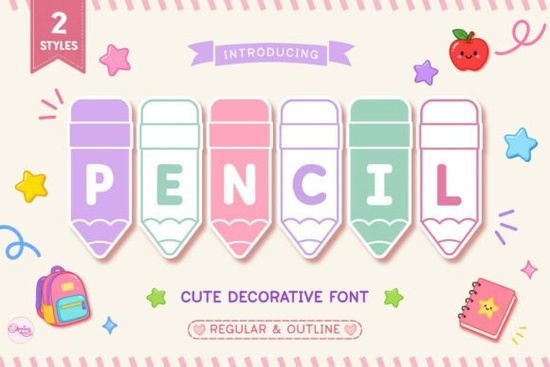
If you're working on a school-themed design project and need a font that actually looks like it belongs in a classroom, Pencil Font is worth a close look. It's a decorative typeface shaped like pencils with rounded edges, a playful vibe, and two styles that give you flexibility for all kinds of creative work. Whether you're designing teacher resources, making stickers, or building out print-on-demand products, this font brings a handcrafted school feel without any extra effort on your part.
What Makes Pencil Font Different from Other School Fonts?
There are plenty of school-themed fonts out there, but most of them fall into two camps: either too plain or too cartoonish. Pencil Font sits in a nice middle ground. Each letter is designed in a pencil shape, but the rounded edges and clean lines keep it readable at both large and small sizes.
It comes with two styles:
- Regular a filled-in pencil letterform, great for bold headings and print projects
- Outline a line-only version that works well for coloring pages, layered designs, and Cricut cut files
Having both styles in one download means you can mix and match depending on the project. Use the regular version for headers and the outline version for subheadings or decorative elements they pair naturally together.
Along with the two font styles, you also get 20 bonus Back to School PNG elements. These are ready-to-use graphics that complement the font's style think school supplies, apples, pencils, and other classroom-themed illustrations.
Who Is This Font Best For?
This font works well for a pretty wide range of creative people, but here are some of the most common uses:
- Teachers classroom labels, bulletin board headers, name tags, worksheet titles
- Cricut and Silhouette crafters back-to-school shirts, tote bags, decals, and iron-on projects
- Print-on-demand sellers notebook covers, mugs, apparel designs for the school season
- Small businesses signs, flyers, and promotional materials for tutoring centers, school supply shops, or kids' programs
- Sublimation designers all-over prints for tumblers, pencil cases, and fabric items
- Scrapbookers and journal makers headers and embellishments for education-themed pages
The kid-friendly style makes it especially fitting for anything aimed at elementary-age children or parents shopping for school-related products.
Does It Work with Cricut and Cutting Machines?
Yes. The Outline style is particularly well-suited for Cricut and Silhouette projects because the clean lines cut cleanly. You can use it for vinyl decals, heat transfer designs, and paper crafts without worrying about tiny details that might tear or snag during weeding.
The Regular style works too just keep in mind that filled letters use more material on larger cuts, so plan accordingly if you're working with limited vinyl or cardstock.
How Does It Compare to Other Decorative Fonts?
If you've browsed through decorative fonts before, you know the options are endless. Fonts like Chalk Font give a classroom chalkboard feel, while Crayon Font leans into a younger, crayon-drawn look. Pencil Font fills its own niche it's distinctly school-themed but cleaner and more versatile than many novelty fonts. It works in professional-looking teacher materials just as well as it does in playful sticker designs.
Quick Checklist Before You Buy
Here's a simple way to decide if this font is right for your next project:
- Is your project school or education-themed? This font was built for that exact purpose.
- Do you need both filled and outline versions? Having both styles saves time and adds design flexibility.
- Would matching PNG elements be useful? The 20 bonus graphics are a nice time-saver.
- Are you using Cricut or a similar machine? The outline style cuts well and weeding is manageable.
- Do you sell print-on-demand products? Back-to-school designs are consistently popular each year, so the font can pay for itself quickly.